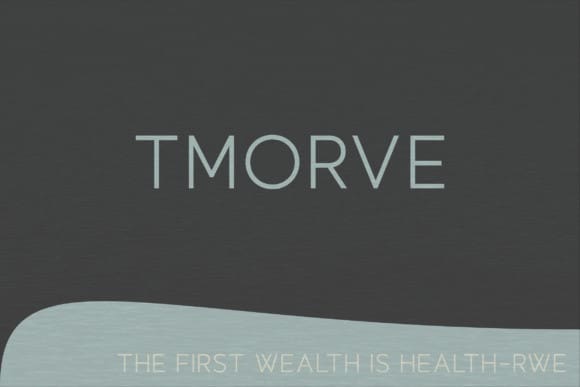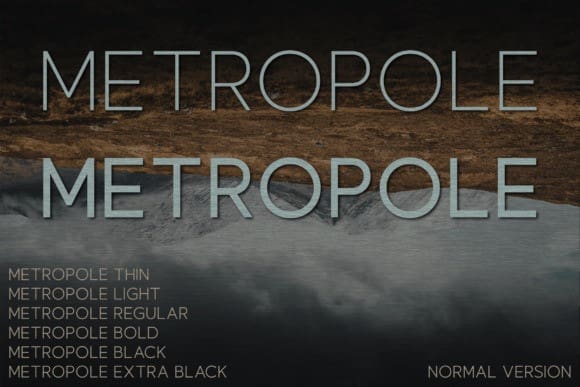
Metropole Font Family
Metropole Font Family. Representing a fusion of five unique weights, this sans serif collection resonates with contemporary luxury and flawless precision. Tailored to perfection, Metropole seamlessly elevates any design endeavor – from glossy magazines to logos and alluring film posters. This font family captures the essence of a truly balanced design, threading the needle between sophistication and simplicity, while infusing your projects with an enduring allure. Explore Metropole’s unique charm in transforming your design world today.